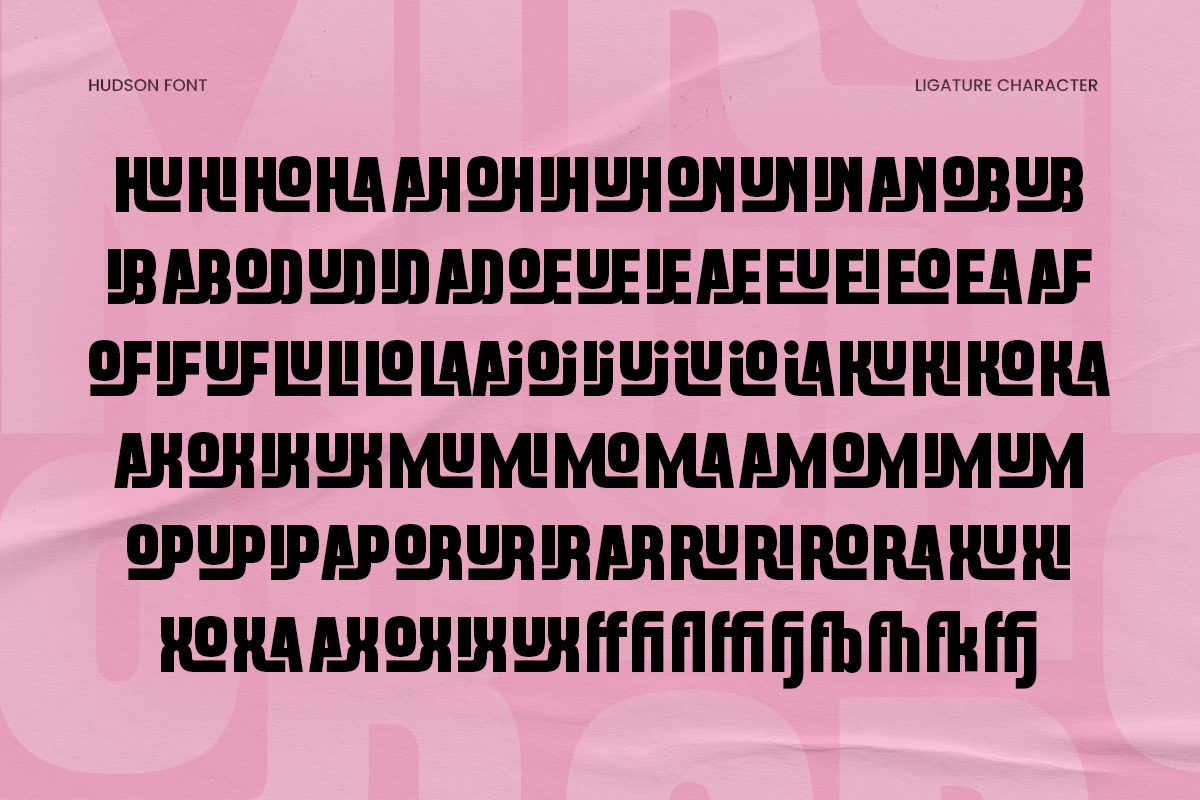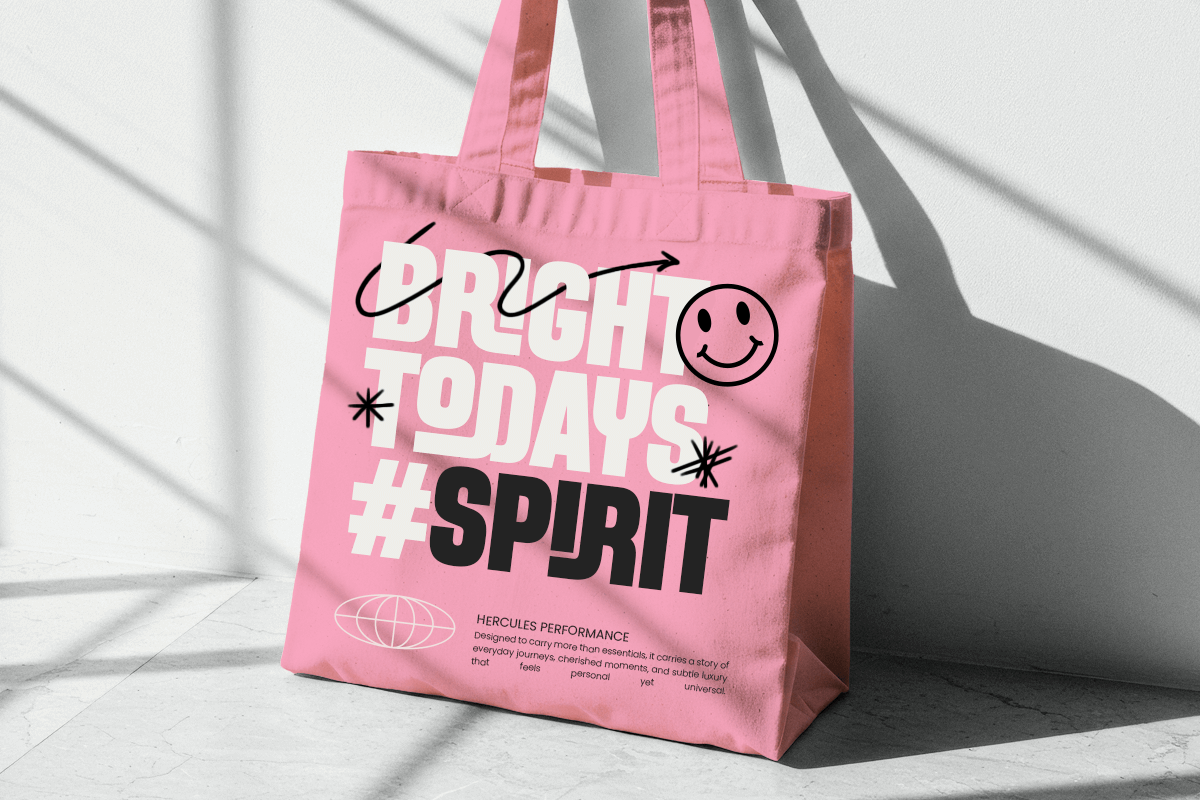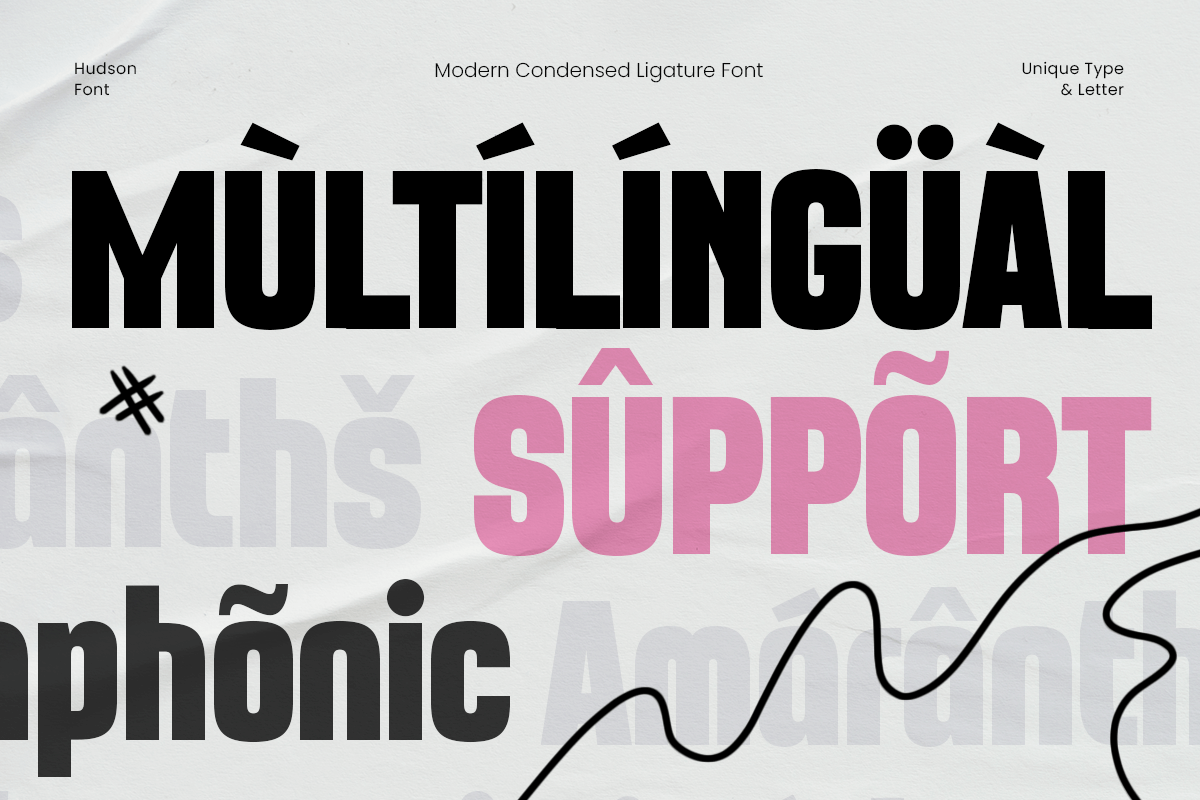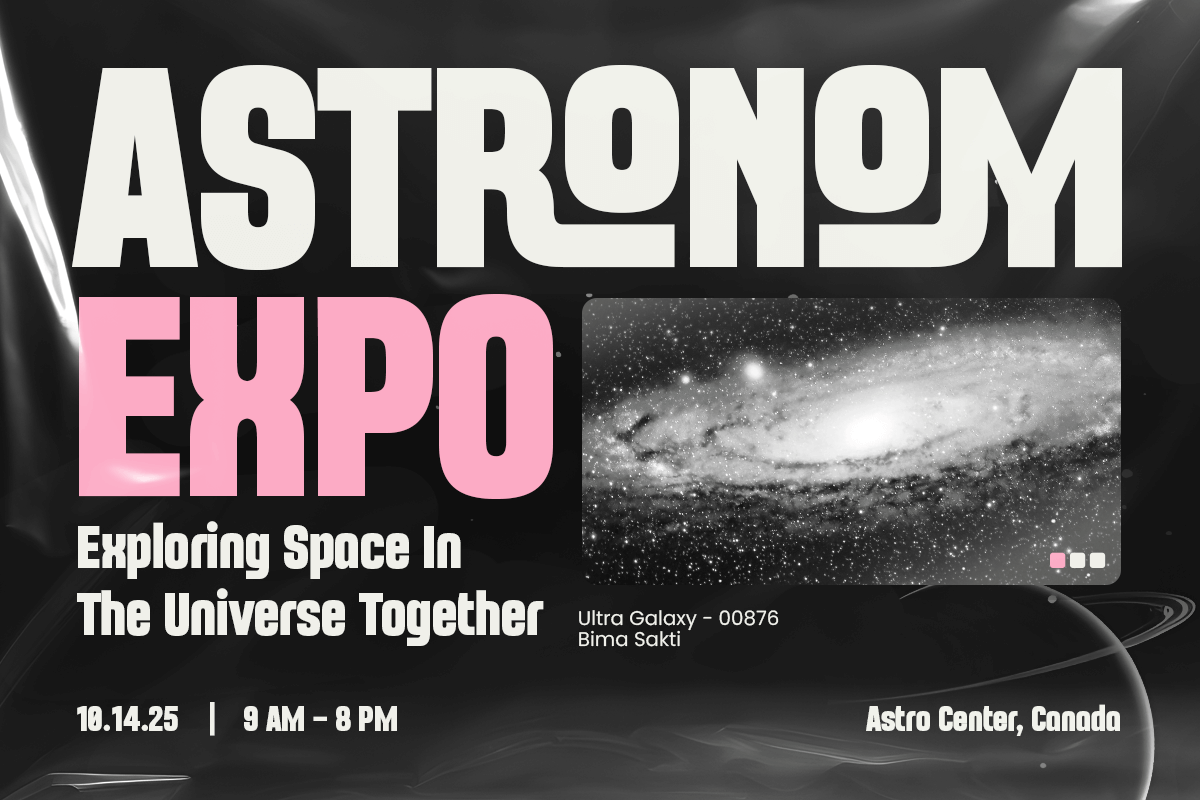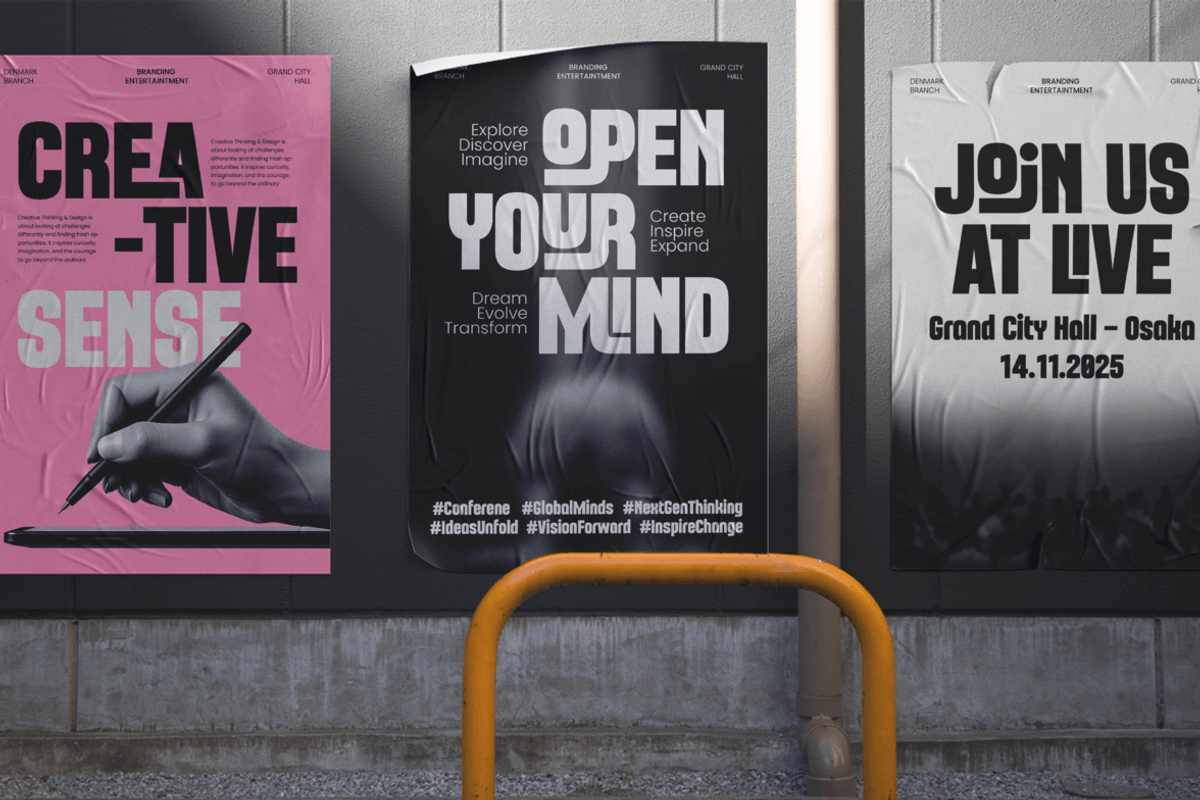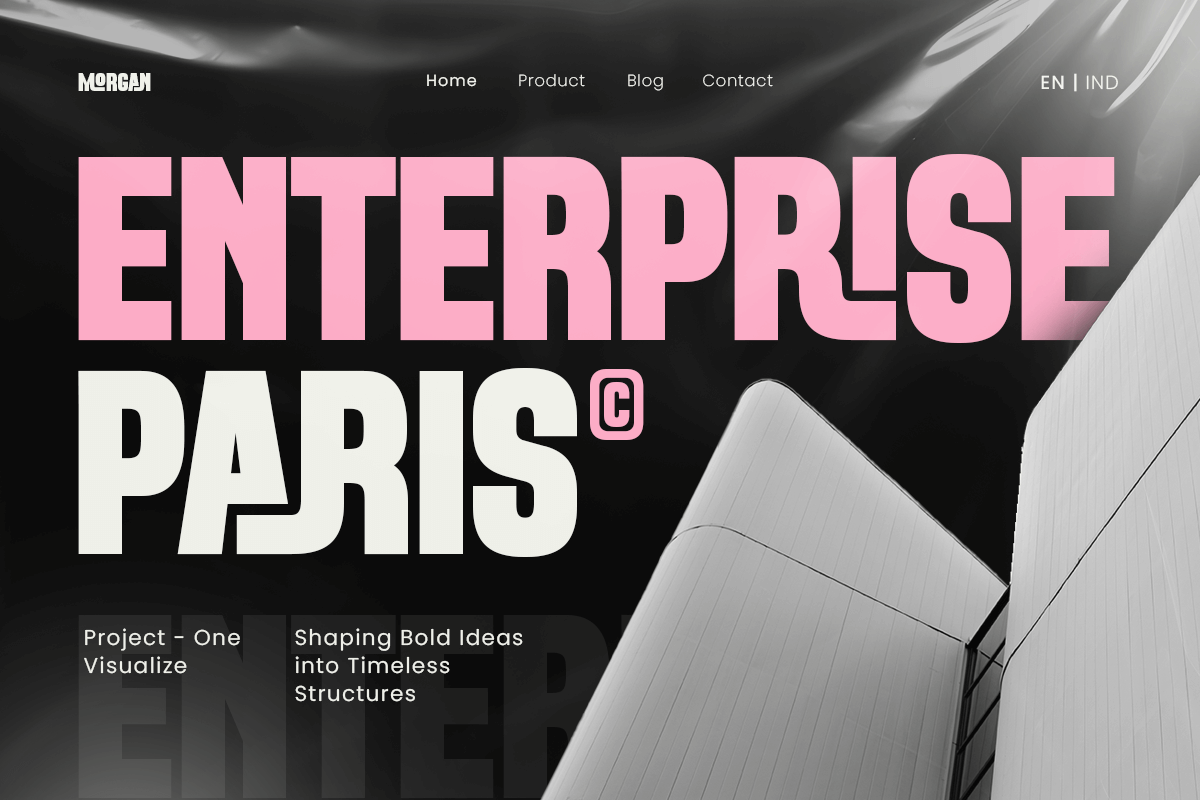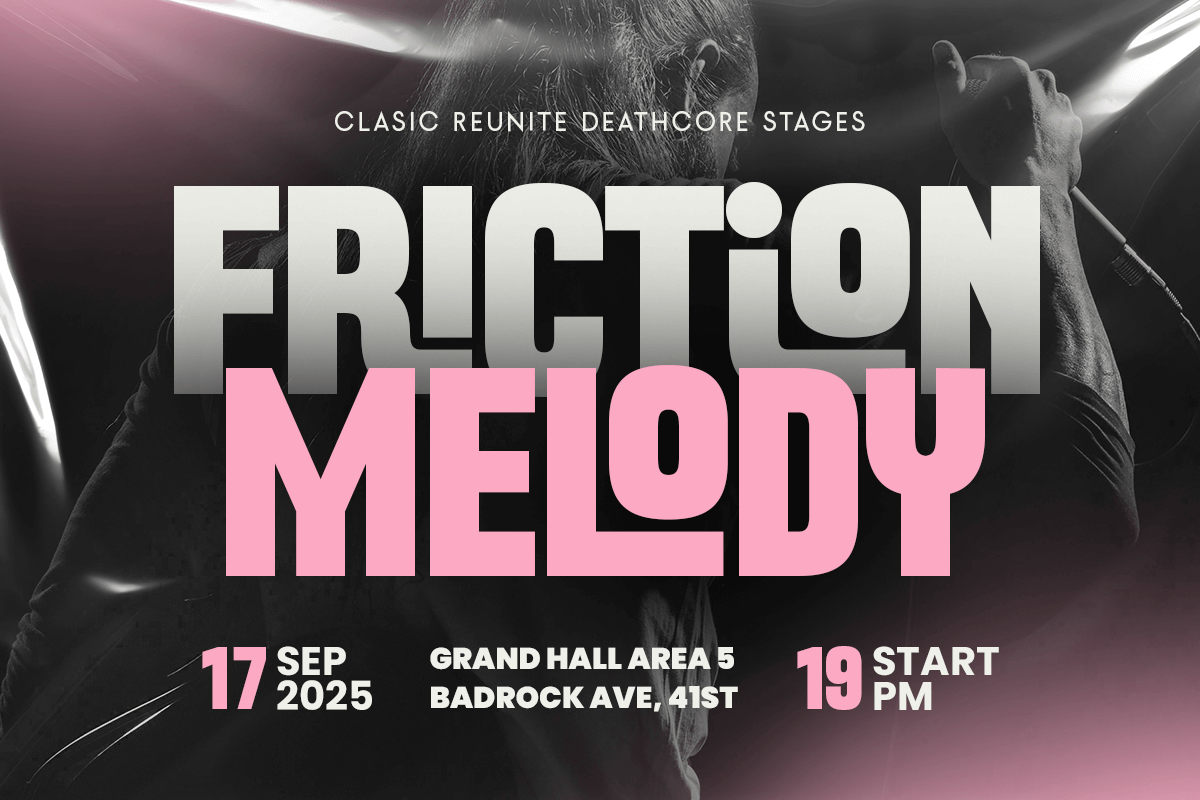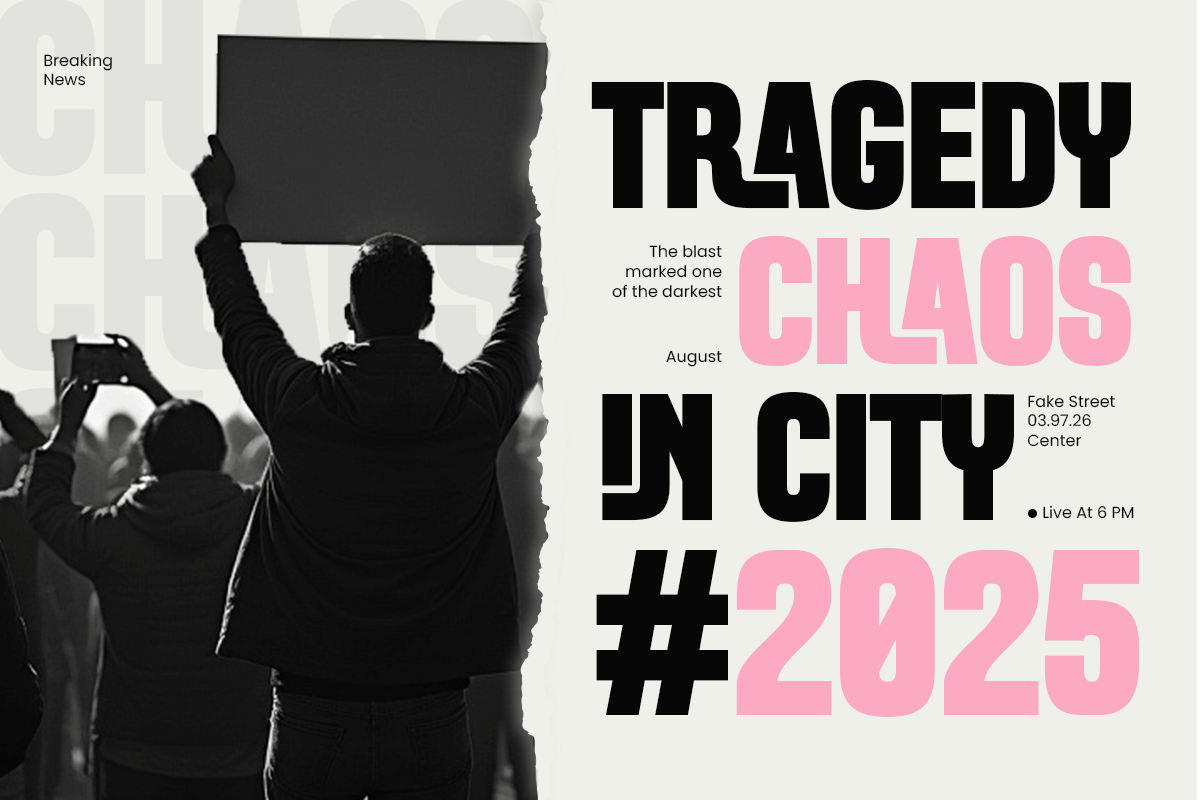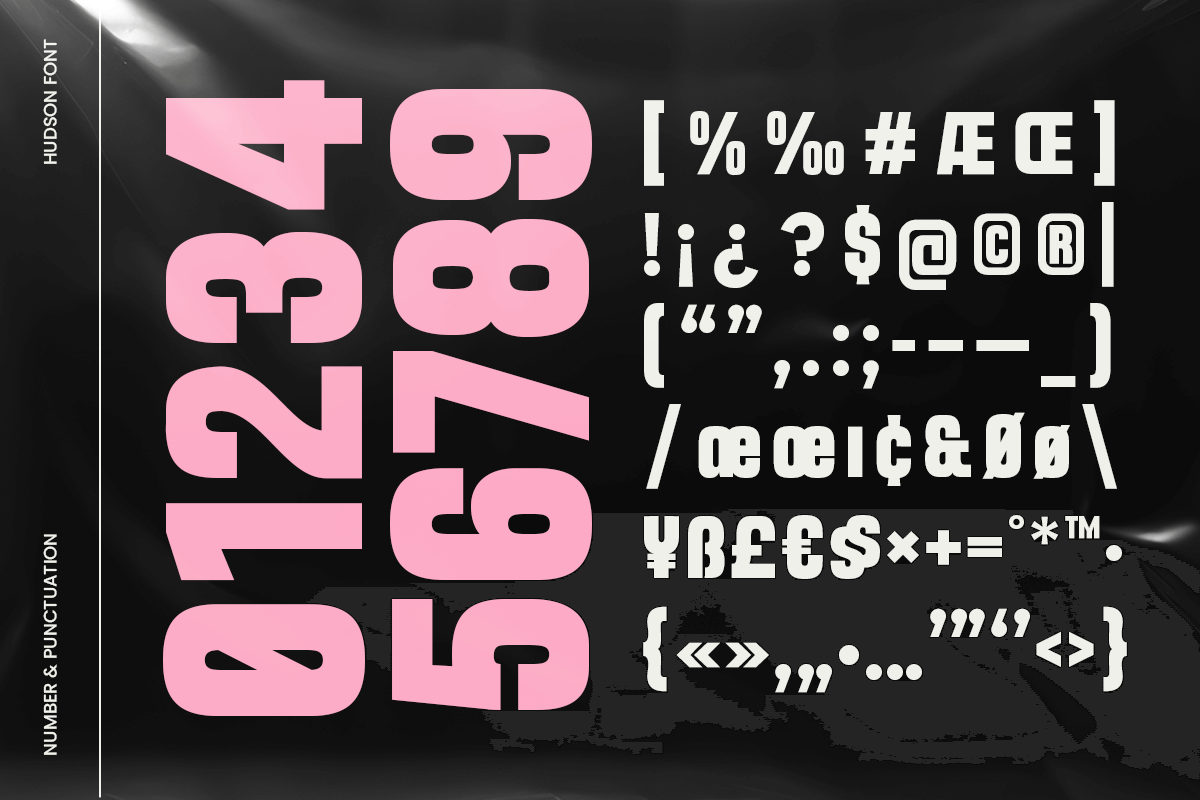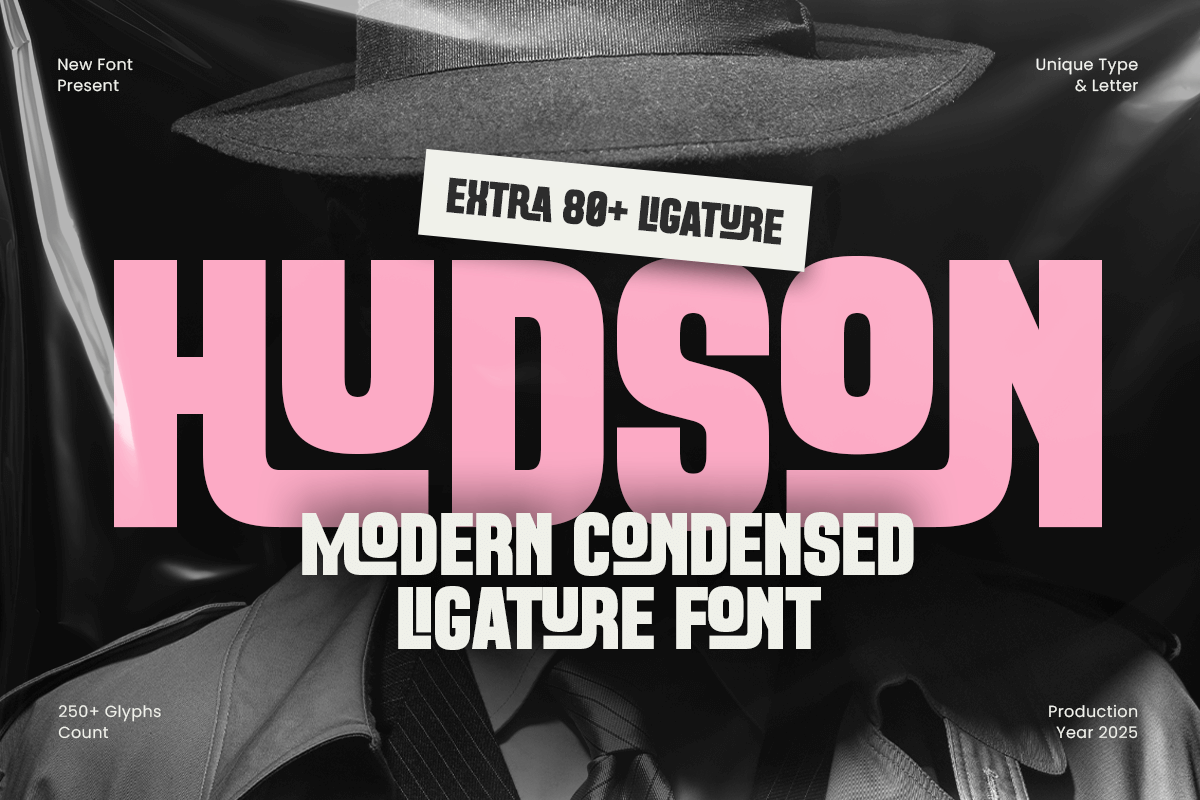
Hudson - Modern Condensed Font
Hudson – Modern Condensed Ligature Font
Hudson is a sleek and stylish condensed font designed for modern branding and bold typographic compositions. Featuring elegant ligatures and clean lines, Hudson brings a strong, contemporary look that’s perfect for logos, headlines, posters, and editorial layouts.
Its narrow letterforms and refined geometry make Hudson ideal for designers seeking a balance between sophistication and space efficiency. The custom ligatures add unique character and flair, making every design look polished, modern, and professional.
Hudson – Modern Condensed Ligature Font Features:
\* Condensed modern style for bold, space-saving typography
\* Stylish ligatures for distinctive, elegant design possibilities
\* Perfect for logos, magazines, posters, headlines, and branding
\* Includes uppercase, lowercase, numerals, and punctuation
\* Clean readability and versatile use across print and digital media
Make your designs stand tall with Hudson – the modern condensed ligature font built for creativity, clarity, and impact.